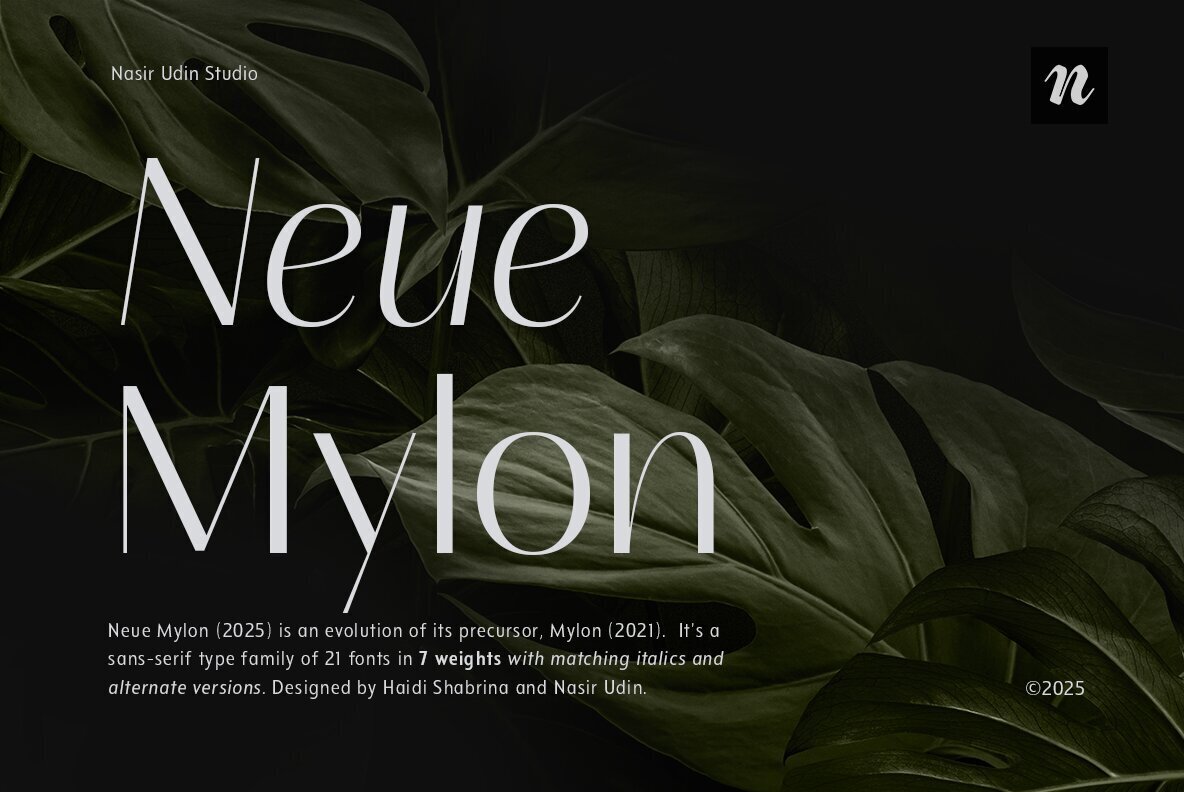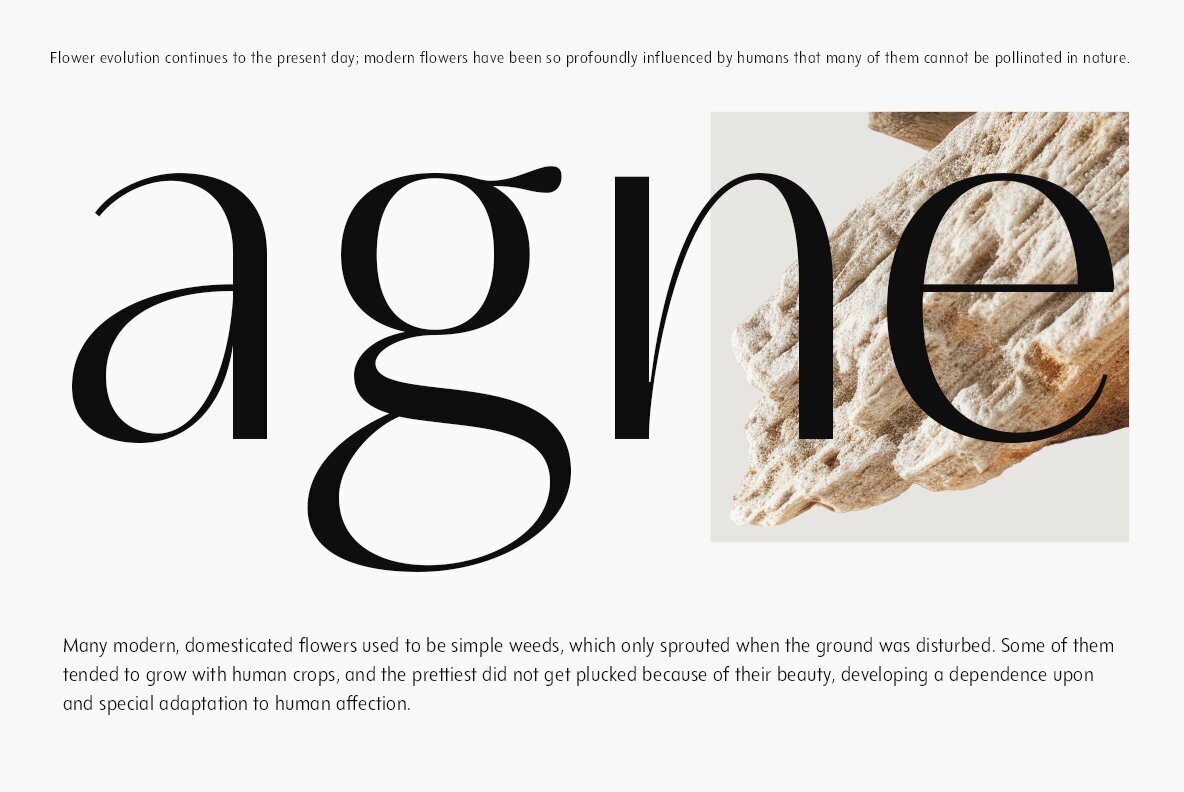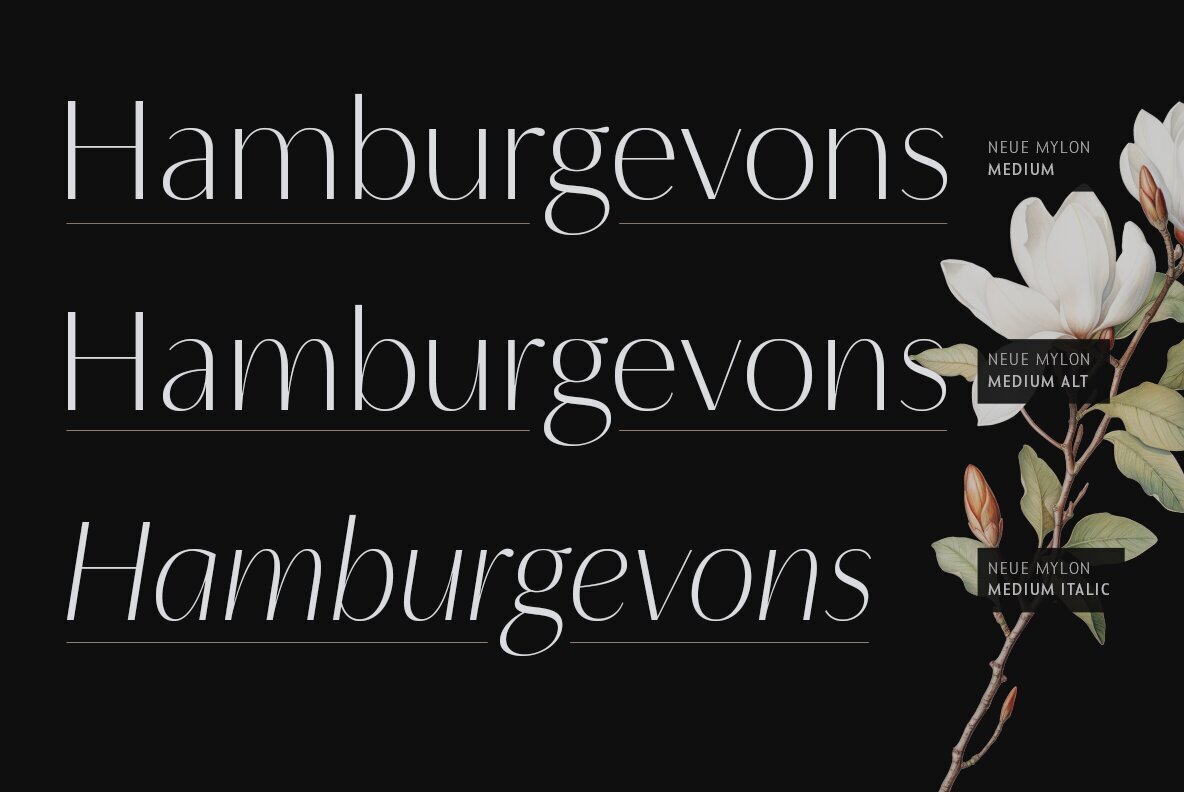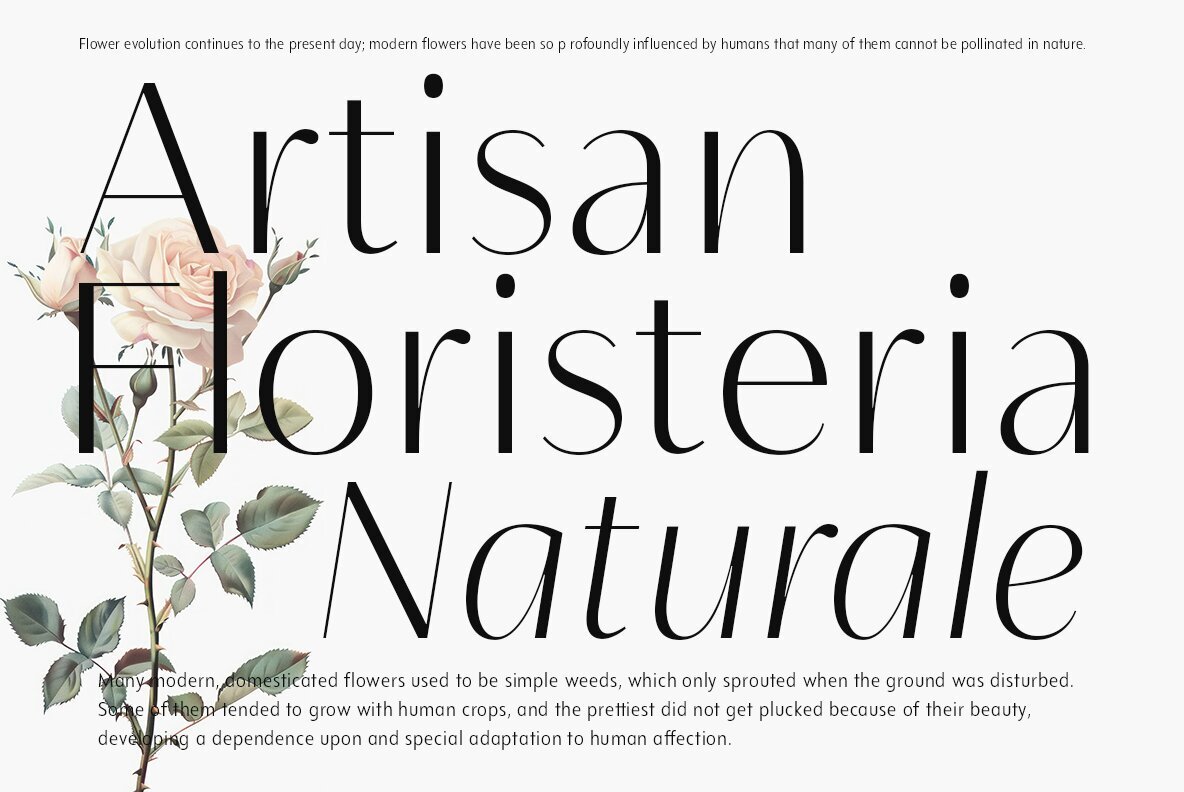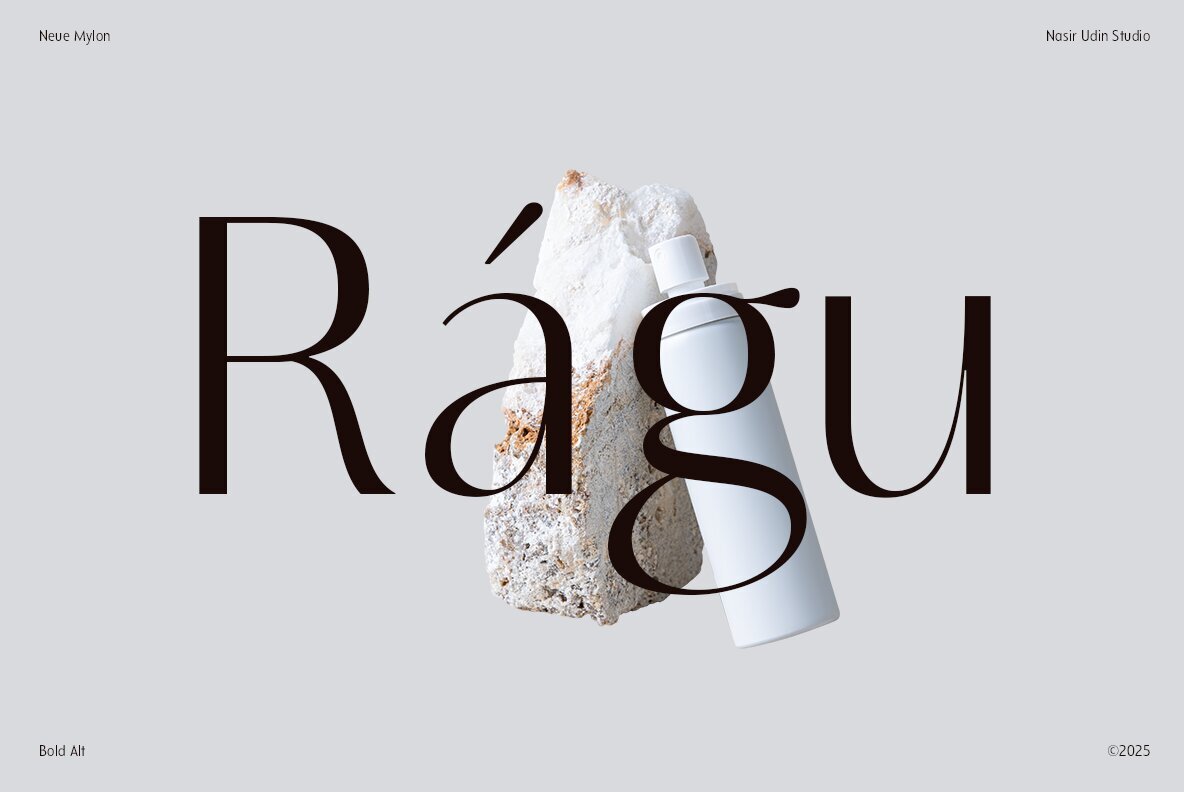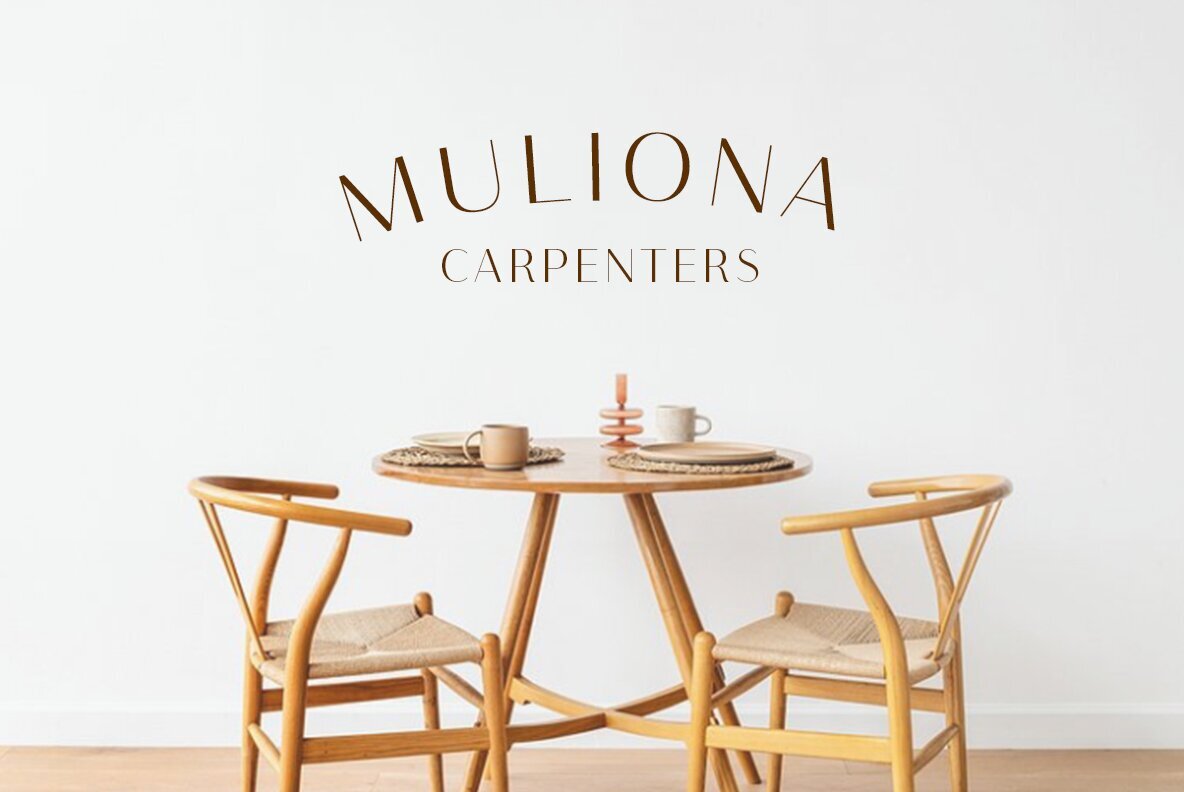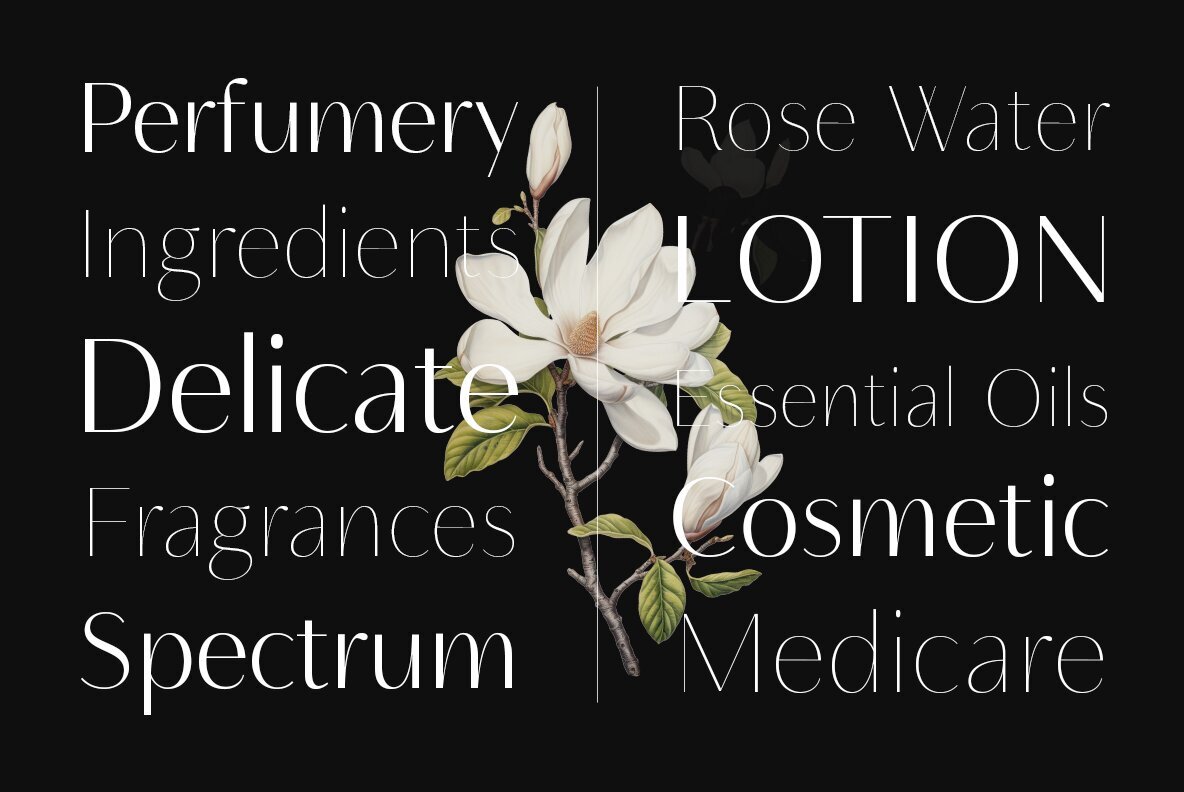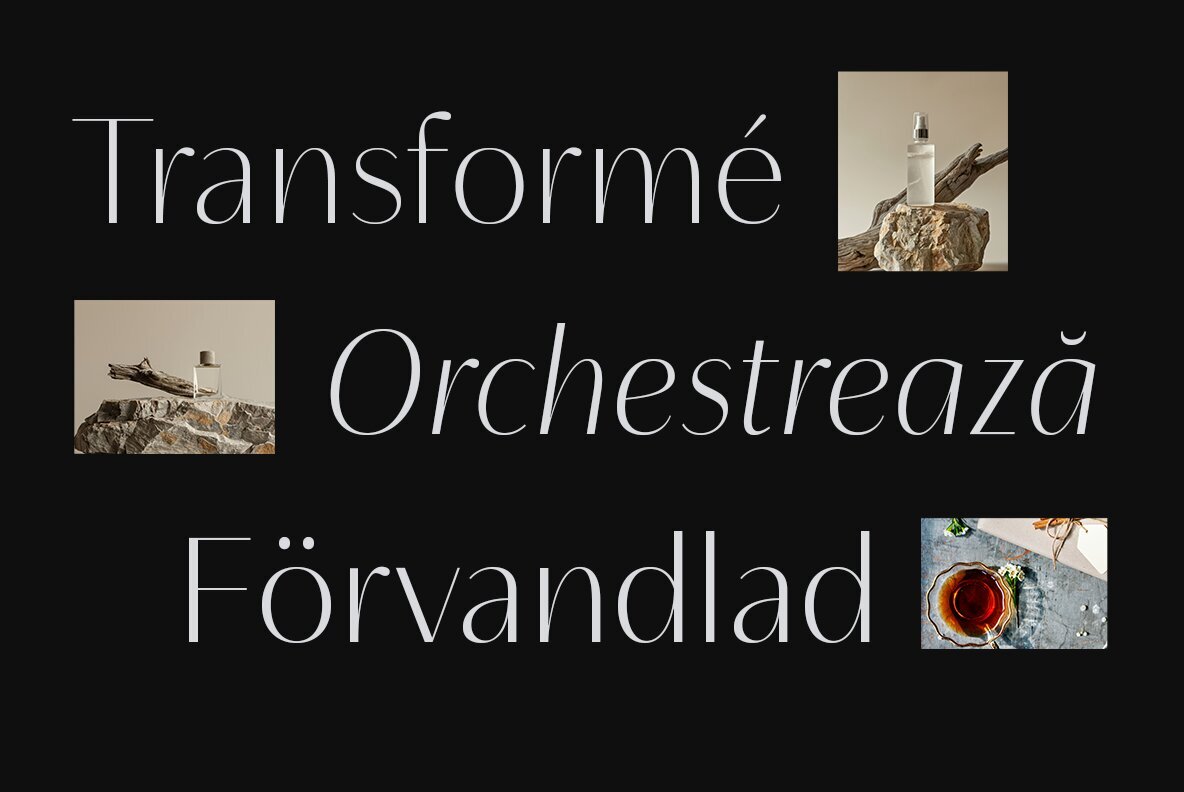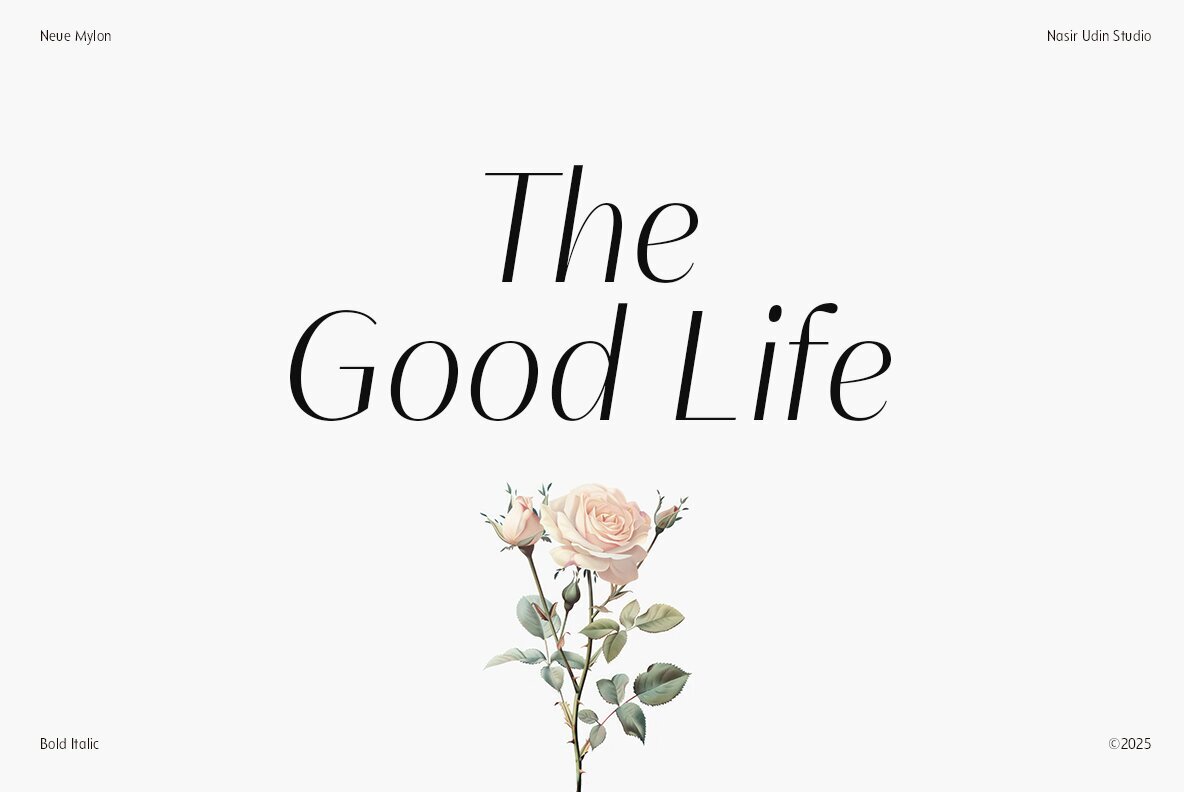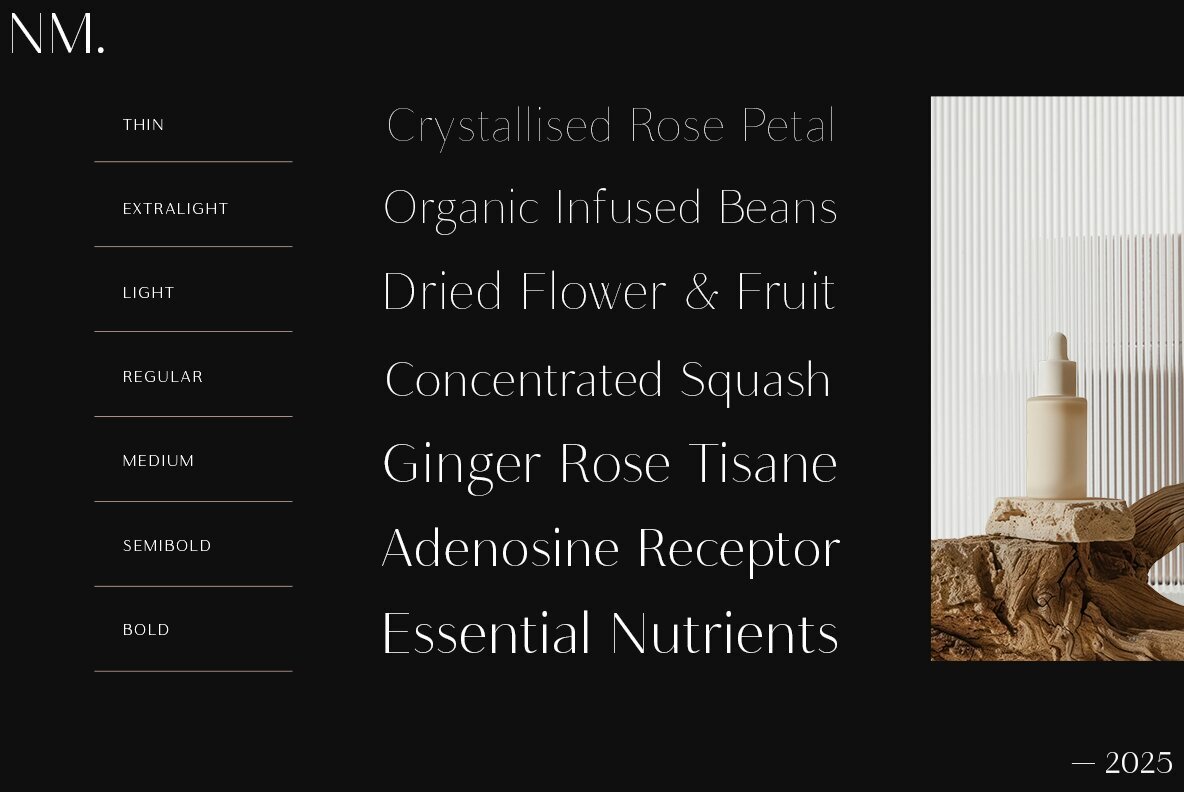
Neue Mylon Font
Neue Mylon is an advanced version of its predecessor, Mylon (2021). This display sans-serif type family offers flexibility with its 21 fonts, including seven different weights along with matching italics and alternate versions. Designed with elegance, thin lines, and a touch of playfulness in the alternate styles, it provides a broad spectrum of design possibilities. The versatility of Neue Mylon makes it well-suited for various design needs, particularly in headlines or brief text sections. Its clean lines ensure clarity and impact, enhancing the visual appeal of your project. Neue Mylon offers a harmonious blend of modern elegance and functionality, supporting creative freedom for designers across various projects.Neue Mylon: Sans-Serif Type Family with Versatile Options
Ideal Usage